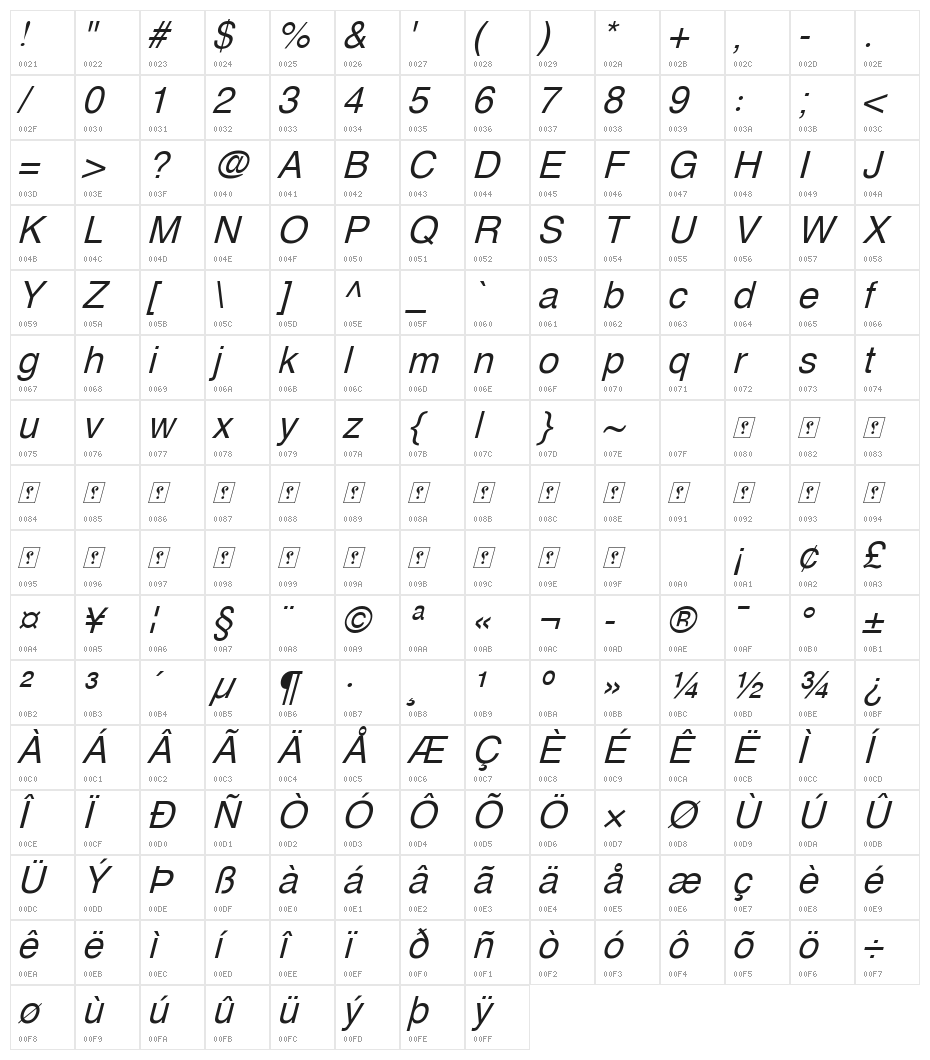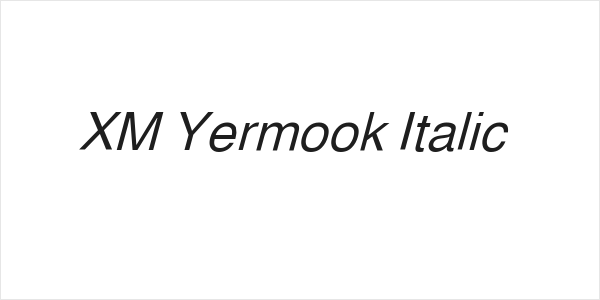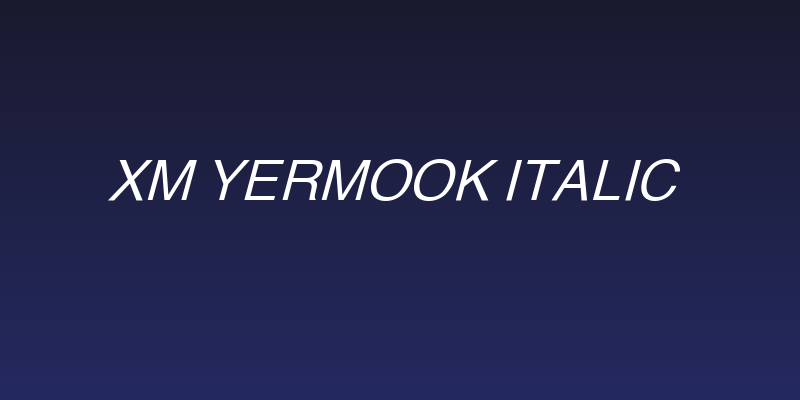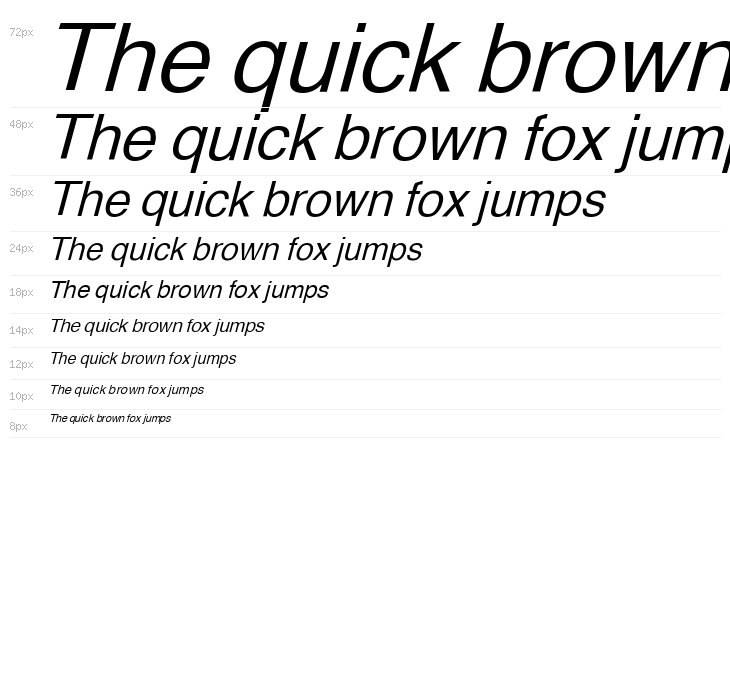
XM Yermook Italic Font
XM Yermook Italic Description
This font exhibits a sleek and modern design with a subtle italic slant, giving it a dynamic and forward-moving appearance. The characters are clean and well-defined, with a consistent stroke width that maintains readability across different sizes. The uppercase letters are slightly taller than the lowercase, providing a balanced and proportional look. The numbers are clear and distinct, making them easily legible. Special characters are well-integrated, maintaining the overall aesthetic of the font. The design is versatile, suitable for both digital and print media.
| Proposed Projects | Ideal for branding, advertising, and editorial design where a modern and professional look is desired. |